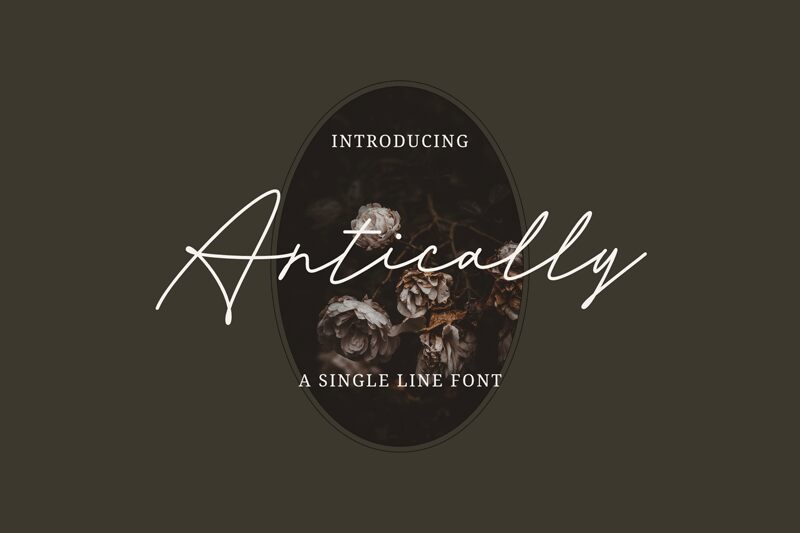
Antically Regular
Antically, designed by Niskala Huruf, is a captivating and elegant font that adds a signature touch to any project. With its monoline handwritten style and extra-light weight, this font brings a delicate and refined aesthetic to your designs.
Perfect for wedding invitations, greeting cards, or personal branding projects, Antically exudes charm and sophistication. Its flowing strokes and graceful curves create a sense of whimsy and authenticity.
Let Antically transform your designs into works of art that leave a lasting impression on your audience.